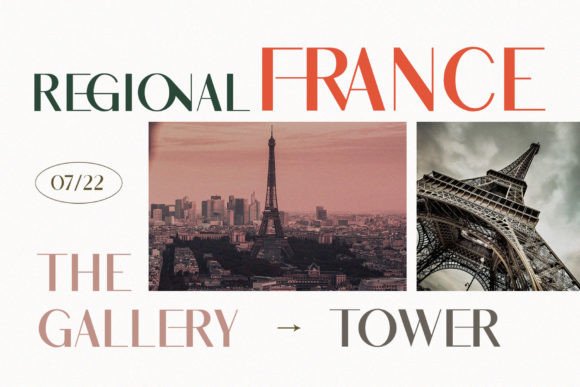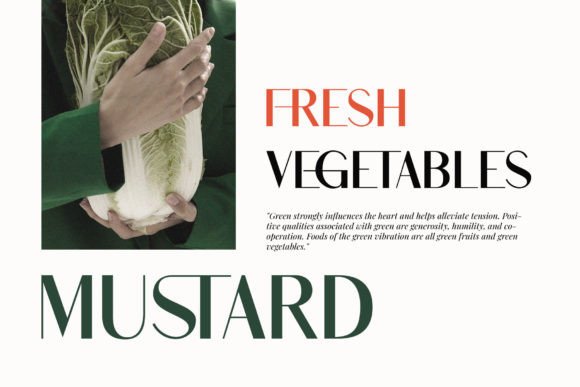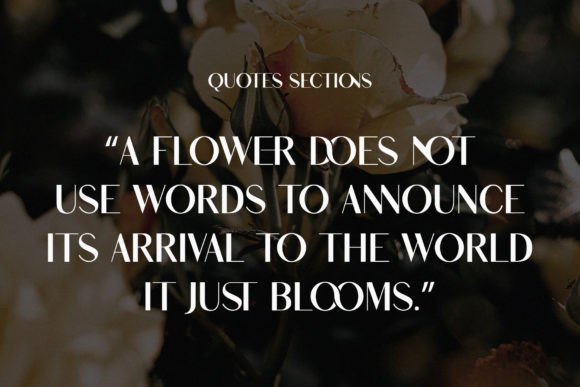
Introduction to Shaqera Font
Have you ever stared at a blank design canvas, struggling to find the perfect font to bring your creative project to life? We’ve all been there – the endless search for the perfect typography can be overwhelming. But what if we told you that your search is over? Enter the Shaqera Font, a modern sans serif font that exudes confidence and innovation.
This game-changing font is more than just a design resource – it’s a statement piece that can elevate any high-quality design to the next level. With its clean and geometric letterforms, Shaqera Font is perfect for tech branding, editorial design, or any project that requires a touch of sophistication and creativity.
Key Features of Shaqera Font
- High-quality design resource with a unique, creative touch, perfect for various projects.
- Includes a transparent background, ideal for use in creative projects that require a clean and modern look.
- Designed with a high resolution, making it suitable for use in large-scale designs and print materials.
Honest Review: Shaqera Font
I recently had the chance to work with the Shaqera Font for a creative project, and I must say it’s been a great addition to my design resource library. The high quality of this font is immediately noticeable, and it’s perfect for any project where you need a unique and eye-catching look.
Here are some of the things that work well with the Shaqera Font:
- Its transparent background makes it easy to customize and integrate into any design.
- The font’s unique style and flair add a touch of elegance and sophistication to any project.
- The font may not be suitable for all types of projects, particularly those with strict branding guidelines.
- The high quality of the font also means it may be a bit heavy on system resources.
Overall, I’m really impressed with the Shaqera Font, and I would highly recommend it to any designer looking to add some flair to their creative project. With its high quality and unique style, it’s a great addition to any design resource library.
Tips for Getting the Most Out of Shaqera Font
To get the most out of the Shaqera Font, use it in creative projects that require a high-quality, unique design resource. Consider using it for logos, titles, or headings in your design. You can also use it in combination with other fonts to create a visually appealing design.
The Shaqera Font is particularly useful for design projects that require a transparent background. It’s also a great choice for designers who want to add a touch of elegance and sophistication to their work. Some common use cases include:
- Brochure design
- Poster design
- Business card design
Alternatives to Shaqera Font
Alex Brush Font is a beautiful, handwritten font that is ideal for designers working on creative projects that require a personal touch. It is a great alternative to Shaqera Font for designers looking for a more whimsical and artistic look. Alex Brush Font is free to download and can be used for personal and commercial projects. Its high-quality design makes it perfect for use on business cards, invitations, and other design materials.